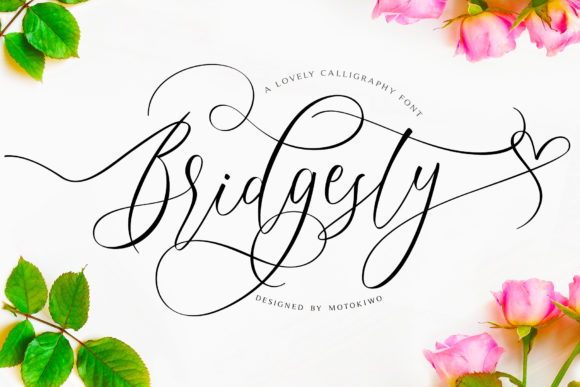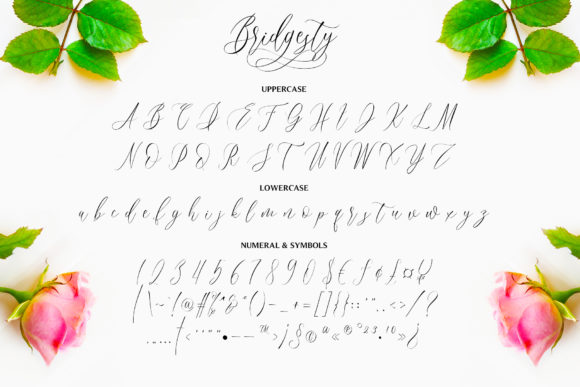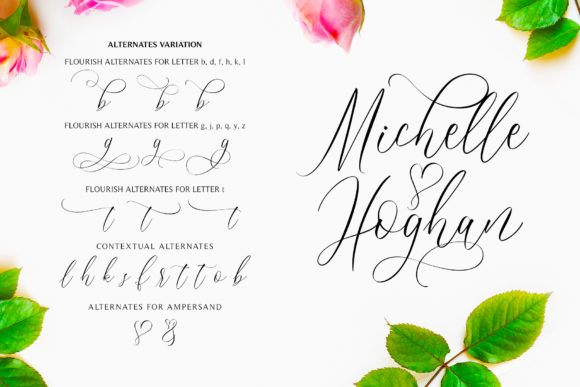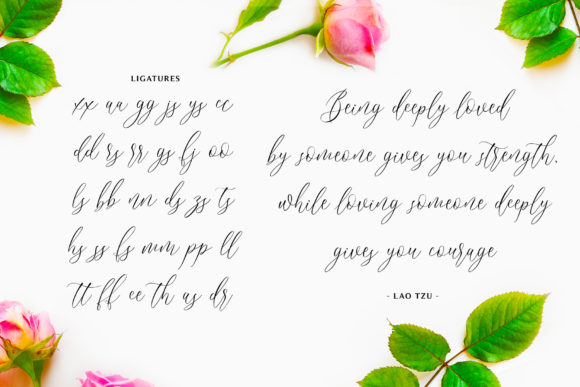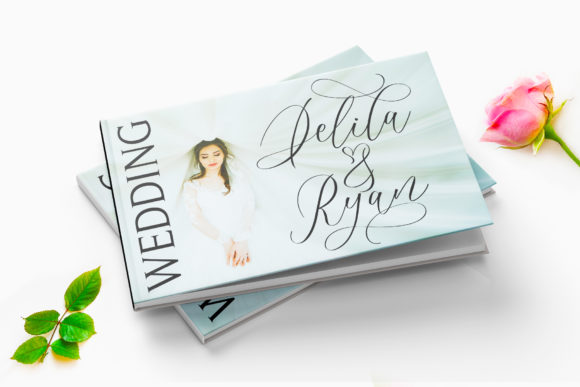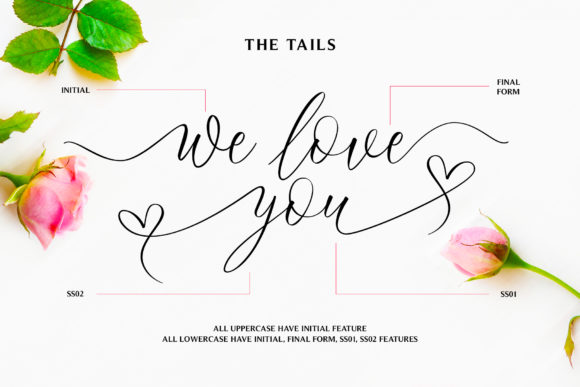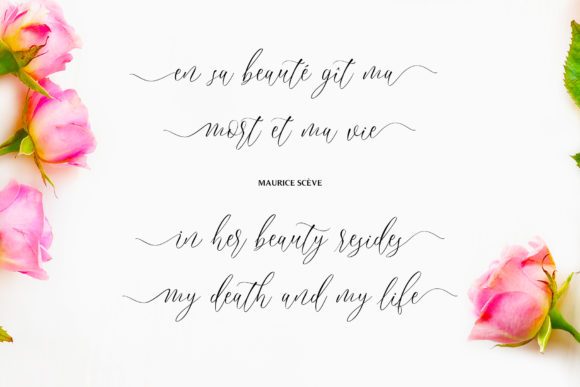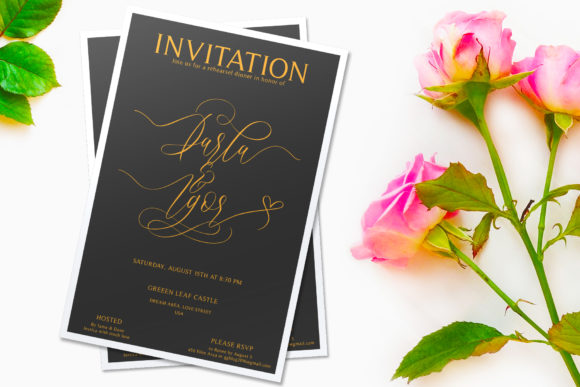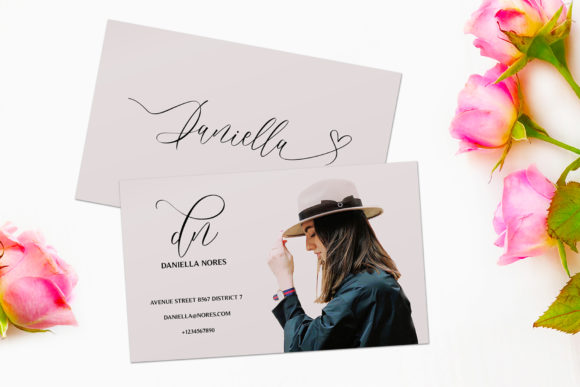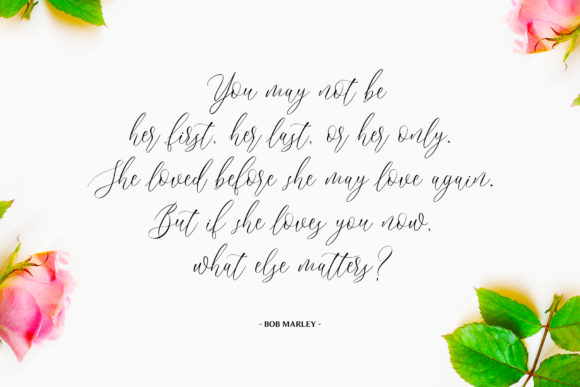
HomeScript FontsBridgesty Font Script Fonts Bridgesty Font FacebookXPinterestWhatsApp Bridgesty Font Poster 2 Bridgesty Font Poster 3 Bridgesty Font Poster 4 Bridgesty Font Poster 5 Bridgesty Font Poster 6 Bridgesty Font Poster 7 Bridgesty Font Poster 8 Bridgesty Font Poster 9 Bridgesty Font Poster 10 About Bridgesty Font Bridgesty is a lovely calligraphy font with amazing swashes. It will add a romantic spark to any design project. DOWNLOAD NOW People also explored Mostyle Font Fantastica Font Velowley Font Marshmallow Font Hair Crafter Spring Font Frenchoy Font Loveya Frame Font Hafsha Font Black Jalal 307 0 TagsBridgesty Font Previous articleEverywhere FontNext articleLondoner Font LEAVE A REPLY Cancel reply Comment: Please enter your comment! Name:* Please enter your name here Email:* You have entered an incorrect email address! Please enter your email address here Website: Save my name, email, and website in this browser for the next time I comment. Personal Use Free Quickline Personal Use Free Read more about this font Adelfa Personal Use Free Read more about this font Krabuler Personal Use Free Read more about this font DangeRNighT Font Personal Use Free Read more about this font BLOG Elegant Wedding Invitation Fonts – Handwritten & Script Fonts Elegant Wedding Invitation Fonts Your wedding day is one of the most important moments of your life, and every detail matters—including your invitation design. Our... Best Fonts for T-Shirt Design – Top 2025 Picks Top 7 Google Fonts Alternatives for Faster and Privacy-Friendly Web Design (2025) Exploring Font Trends